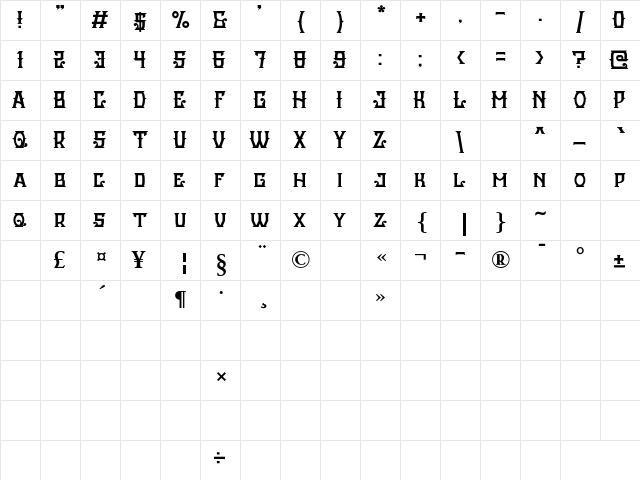
GENTLEMAN Bold
Design Context for GENTLEMAN Typeface
GENTLEMAN is a composed and adaptable typeface that performs quietly and consistently across a wide range of design contexts. Its bold stroke weight gives it real presence on the page.